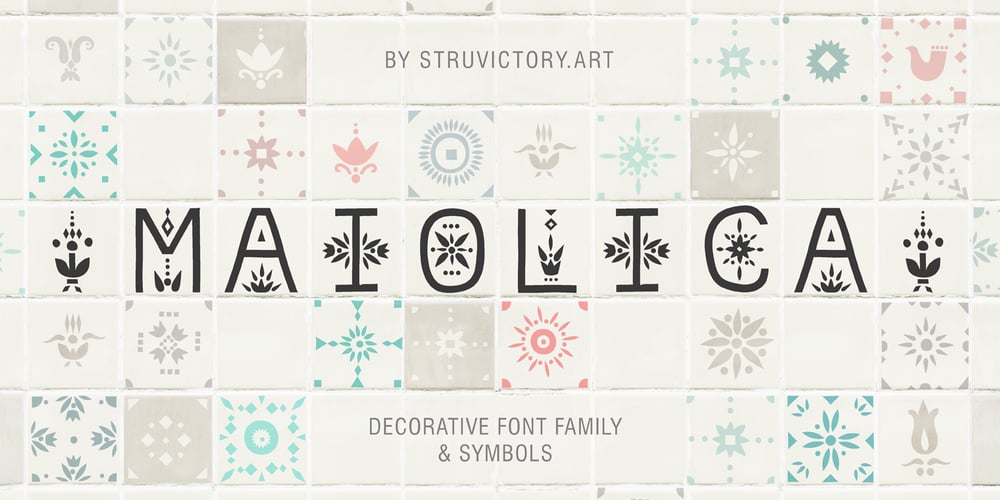
Maiolica Font Family was designed by Viktoryia Strukouskaya, Viktor Strukouski and published by Struvictory.art. Maiolica contains 3 styles and family package options. We would like to introduce a new font Maiolica. We were inspired by Italian ceramics and floral patterns on square tiles. We decorated the empty space of letters with geometric patterns. That’s how this font turned out! Maiolica typeface includes three fonts: Decorative, Inline, Symbol. Mix and match them to get interesting design. The font is suitable for menu design, wedding invitations and cards, craft products branding and packaging (ceramics, floristics, soap making, natural cosmetics ect). You can create trendy lettering posters for your social media, photo overlays, printing clothes. Also use individual letters and symbols to create logos and monograms.